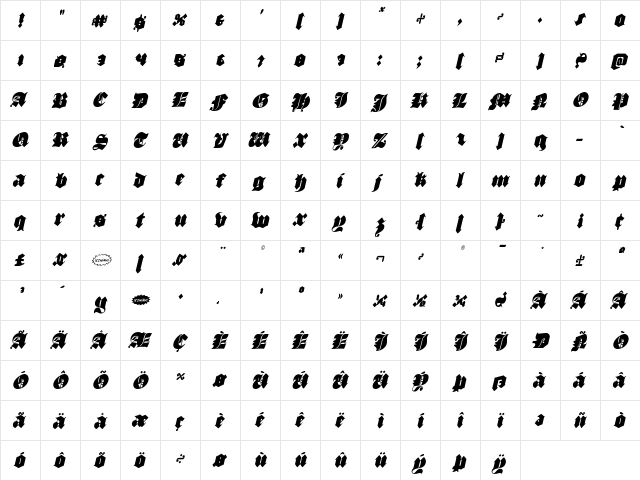
Lux Contra Tenebras Condensed Italic Font Preview
Design Context for Lux Contra Tenebras Condensed Italic Typeface
Lux Contra Tenebras Condensed Italic is a composed and adaptable typeface that performs quietly and consistently across a wide range of design contexts. The dynamic lean of this cut emphasises speed and emphasis in any layout. Its narrow stance lets it pack a punch even in space-constrained designs.